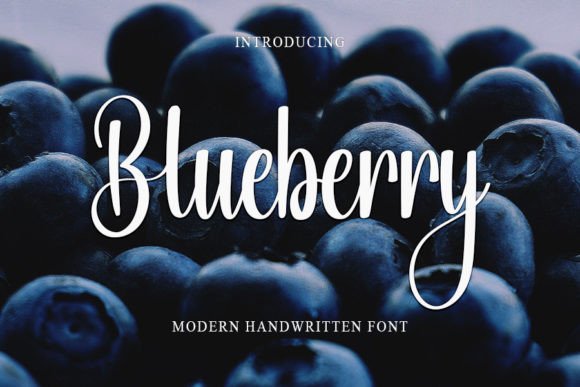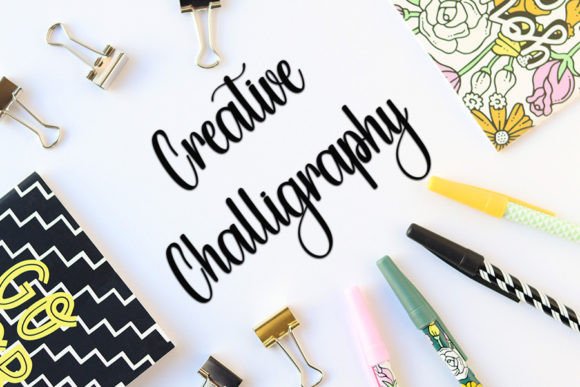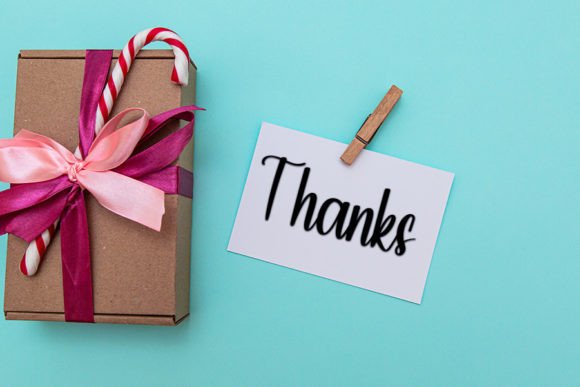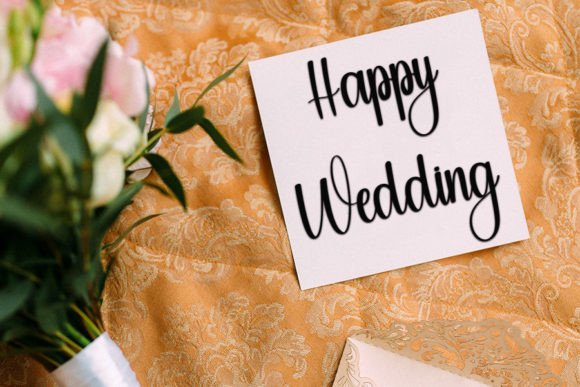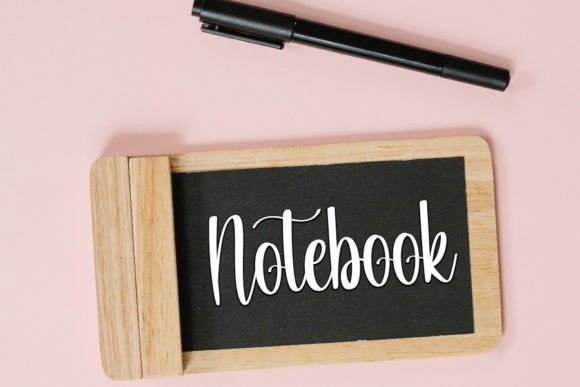
Blueberry Font
**Blueberry Font: Timeless Elegance and Distinct Style for Your Projects**
Introducing Blueberry, a neat and beautiful handwritten font that effortlessly combines timeless elegance with a distinct and captivating style. With its unique qualities and versatile application, Blueberry is the perfect choice for your favorite projects. Here’s why Blueberry stands out:
**Timeless Elegance:** Blueberry exudes a timeless elegance that adds a touch of sophistication to your designs, making them stand out with classic beauty.
**Distinct and Captivating:** This font’s distinct style and captivating appearance ensure that your projects leave a lasting impression on viewers.
**Incredibly Versatile:** Blueberry’s versatility allows it to adapt to a wide range of design needs, from branding to invitations, posters, and more.
**Timeless Appeal:** The font’s timeless appeal guarantees that your designs remain visually appealing and relevant, regardless of design trends.
**Elegant Simplicity:** Blueberry’s elegant simplicity is its hallmark, allowing your text to shine without unnecessary complexity.
**Clear and Readable:** The font’s clarity and readability ensure that your text remains legible and easy to comprehend, even in intricate layouts.
**Visual Impact:** Blueberry adds visual impact to your projects, making it an excellent choice for conveying important messages and enhancing your brand identity.
**Creative Freedom:** Enjoy creative freedom with Blueberry, using it to explore various design concepts while maintaining an elegant and captivating style.
**Polished Aesthetics:** The font’s polished aesthetics are perfect for high-quality print materials, digital graphics, and any project that demands a refined appearance.
**Seamless Integration:** Blueberry seamlessly integrates with various visual elements, enhancing the overall aesthetic of your designs.
**Classic and Contemporary:** Use Blueberry to achieve a perfect blend of classic and contemporary design, creating visuals that appeal to a broad audience.
**Design Harmony:** Blueberry creates design harmony by effortlessly complementing other design elements, ensuring a cohesive and visually pleasing result.
**Artful Typography:** Employ Blueberry to craft artful typography that elevates the artistic appeal of your designs.
**Professional Presentation:** Blueberry enhances the professional presentation of your projects, making them look polished and sophisticated.
**Unique Identity:** Add a unique identity to your projects with Blueberry, infusing them with authenticity and individuality.
**Versatile Application:** Blueberry’s versatility makes it suitable for a wide array of projects, from elegant branding to heartfelt invitations, posters, and more.
**Attention-Grabbing:** The font’s attention-grabbing qualities ensure that your designs capture viewers’ interest and leave a memorable impact.
**Refined Craftsmanship:** Every character in Blueberry showcases refined craftsmanship, giving your text an artisanal quality.
**Design Excellence:** Blueberry embodies design excellence, offering a font style that is both visually pleasing and impactful.
**Personalized Charm:** Blueberry adds a personalized charm to your projects, making them relatable and engaging.
**Spectacular Results:** Expect spectacular results when you use Blueberry, as it enhances the aesthetics and visual appeal of your designs.
**Enduring Beauty:** Blueberry’s enduring beauty ensures that your designs continue to captivate and inspire.
**Inspiration Unleashed:** Let Blueberry inspire your creativity, allowing you to explore different design possibilities while maintaining an elegant and timeless aesthetic.
**Distinctive Elegance:** Blueberry’s distinctive elegance sets it apart as a font that brings a touch of sophistication to your projects.
**Classic Appeal:** Blueberry boasts classic appeal, making it suitable for design themes that celebrate traditional and timeless styles.
**Intriguing Details:** Discover the intriguing details within each character of Blueberry, adding depth and interest to your typography.
With Blueberry, you have a font that effortlessly combines timeless elegance with a distinct and captivating style, allowing your creative projects to shine with classic beauty and sophistication.